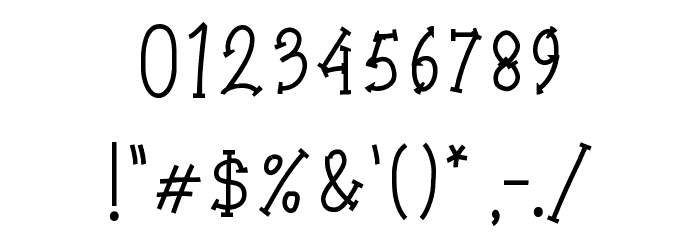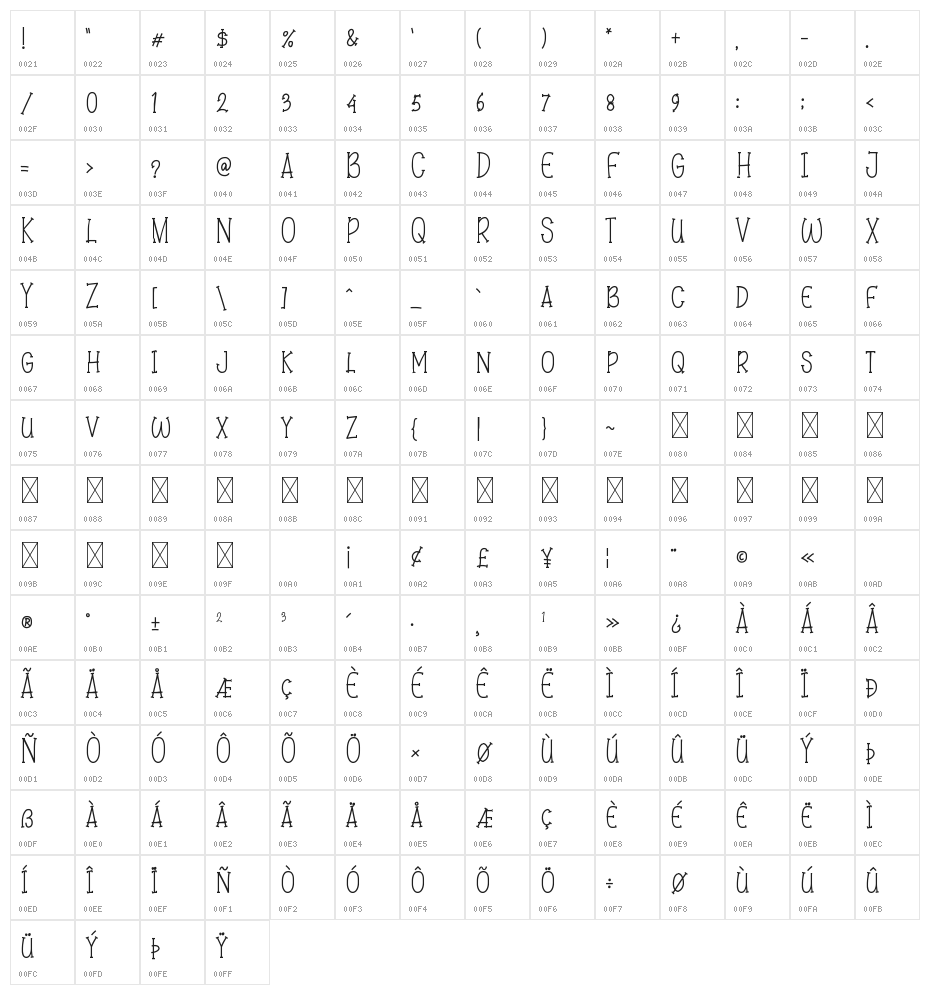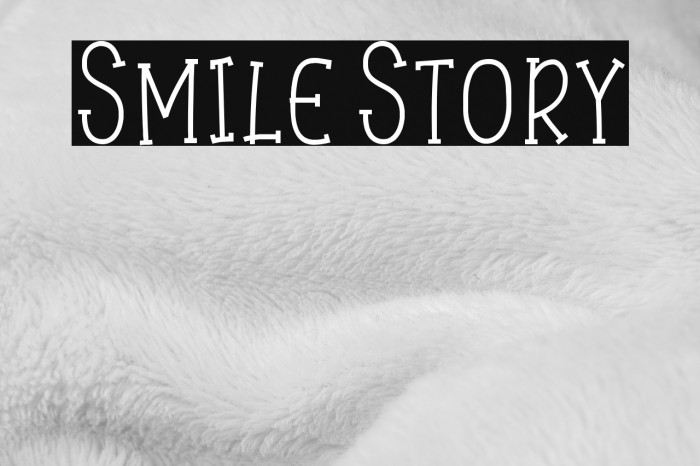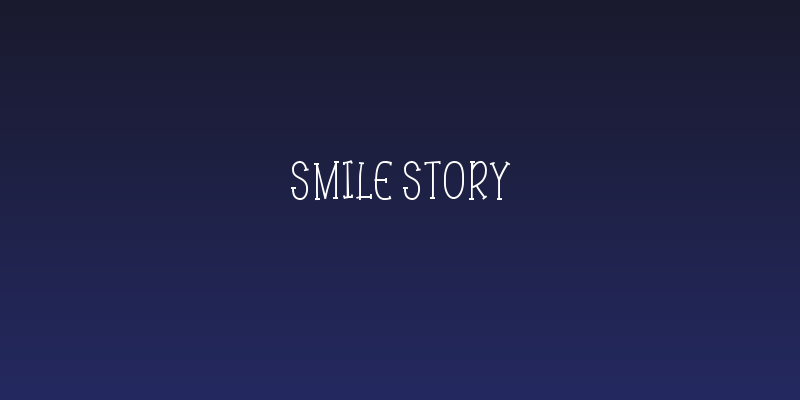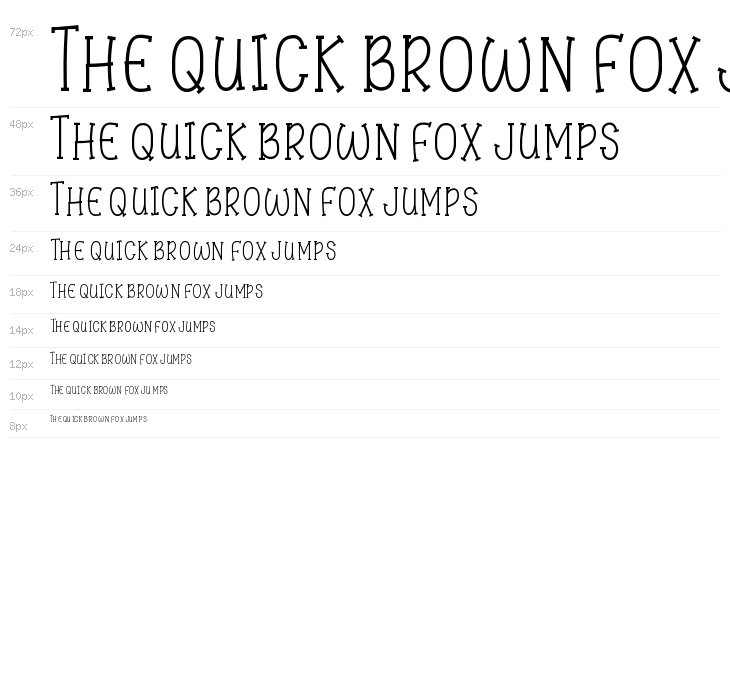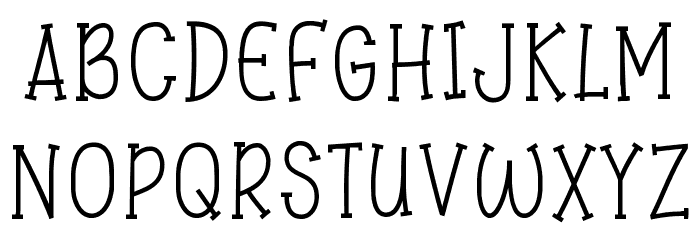
Smile Story Font
Smile Story Description
This font features a playful and whimsical style, characterized by its tall, narrow letters with slight curves and a hand-drawn appearance. The uppercase and lowercase letters maintain a consistent height, giving it a uniform look. The strokes are moderately thick, providing a medium contrast that enhances readability while retaining a casual, friendly vibe. The numerals and special characters are designed to match the playful aesthetic, making it suitable for creative and informal projects. Its unique charm makes it stand out, perfect for designs that aim to convey a sense of fun and approachability.
| Proposed Projects | Ideal for children's books, greeting cards, playful branding, and creative posters. |